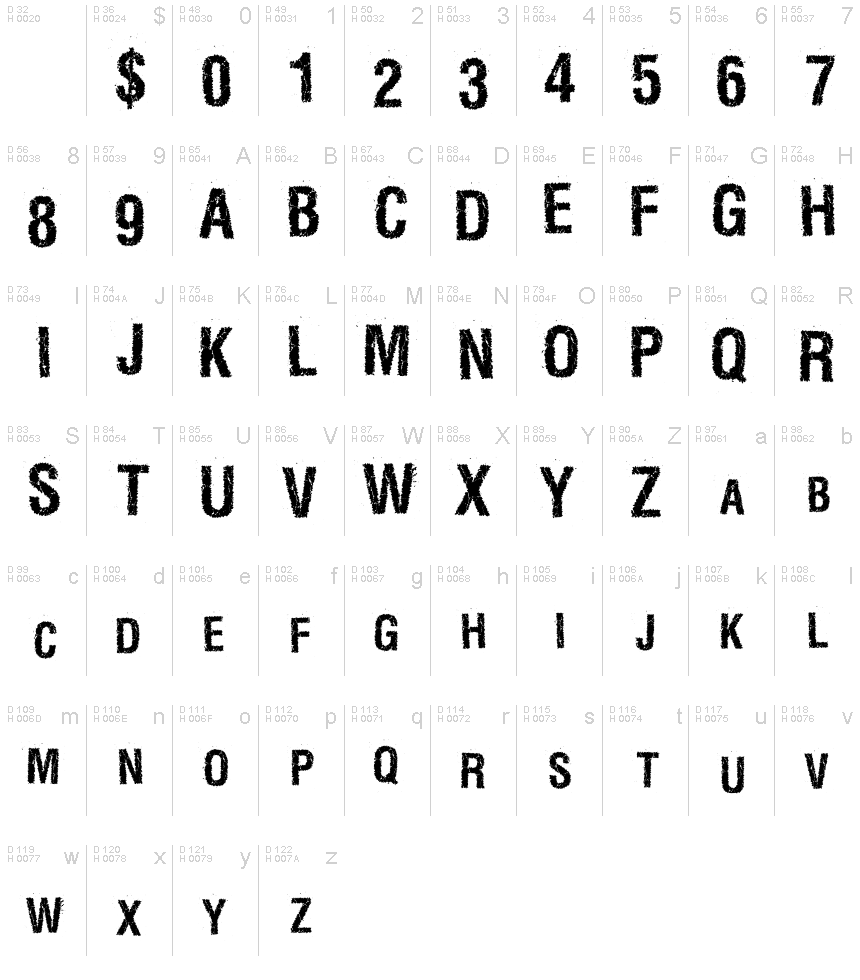
MarbleWasteland
Marble Wasteland is an evocative display font that exudes a rugged, weathered charm. Characterized by its eroded, distressed appearance, this typeface conjures a sense of industrial grit and abandoned landscapes. The uneven, textured letterforms suggest a passage of time, inviting viewers to imagine the font's application in vintage branding, post-apocalyptic graphic design, or edgy editorial layouts. With its strong visual impact and versatile aesthetic, "Marble Wasteland" presents a compelling option for designers seeking to infuse their work with a bold, moody atmosphere.
Crafted by Xerographer Fonts, this display font's distinctive style makes it well-suited for attention-grabbing headlines, impactful logos, and captivating poster designs. Its unique character offers designers the opportunity to create an impactful visual statement that resonates with audiences and leaves a lasting impression.